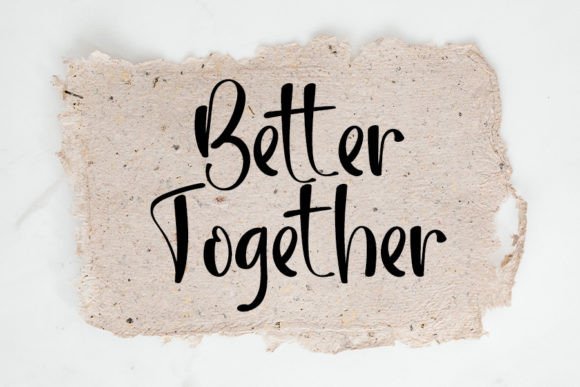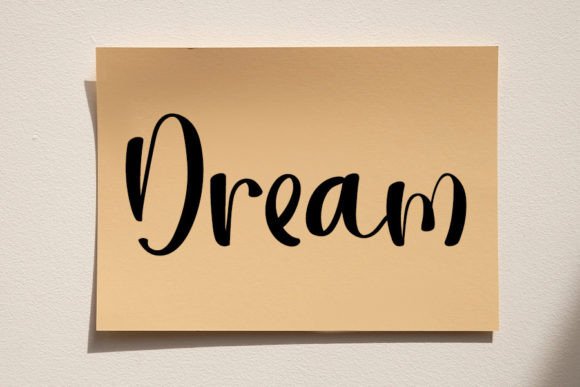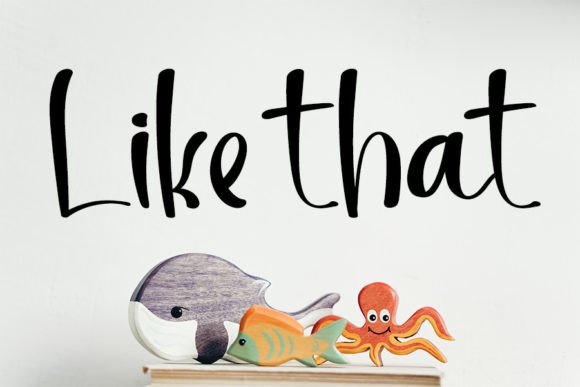
Introducing Handmade Font: Elevate Your Designs with Elegance
Are you on the lookout for a font that adds a touch of sophistication and charm to your projects? Look no further than the Handmade Font, a beautiful handwritten font that exudes elegance and refinement. With its unique and timeless style, this font is perfect for designers and crafters seeking to create stunning designs that leave a lasting impression.
The Beauty of Handmade Font
Handmade Font is a neat and beautiful handwritten font that boasts an elegant touch, making it ideal for a wide range of projects. Whether you’re working on a logo, branding materials, or marketing collateral, this font is sure to impress. Its incredibly distinct style sets it apart from other fonts, giving your designs a unique and recognizable flair.
Key Features of Handmade Font
- Elegant and Refined: Handmade Font features a sophisticated and elegant design that’s perfect for high-end projects.
- Unique and Timeless Style: This font’s distinct style ensures that your designs will stand out from the crowd and remain relevant for years to come.
- Handwritten Charm: The font’s handwritten nature adds a touch of warmth and personality to your designs, making them more relatable and engaging.
- Versatile: Handmade Font can be used for a wide range of projects, from logos and branding materials to marketing collateral and more.
Why Choose Handmade Font?
With so many fonts available, why choose Handmade Font for your projects? Here are just a few reasons why designers and crafters love this font:
- Easy to Read: Despite its elegant and refined design, Handmade Font is easy to read, making it perfect for body text and other applications where legibility is key.
- Customizable: With its versatile design, Handmade Font can be easily customized to suit your project’s specific needs.
- Unique and Memorable: This font’s distinct style ensures that your designs will be remembered long after they’ve been seen.
Using Handmade Font in Your Designs
So, how can you use Handmade Font in your designs? Here are a few ideas to get you started:
- Logos and Branding: Use Handmade Font to create a unique and memorable logo that sets your brand apart.
- Marketing Collateral: Add a touch of elegance and sophistication to your marketing materials, such as brochures, flyers, and business cards.
- Web Design: Use Handmade Font to create a beautiful and engaging website that showcases your brand’s personality.
- Crafting and DIY Projects: Add a personal touch to your crafting and DIY projects, such as handmade cards, gift tags, and more.
Tips for Getting the Most Out of Handmade Font
To get the most out of Handmade Font, here are a few tips to keep in mind:
- Experiment with Different Sizes and Colors: Don’t be afraid to experiment with different sizes and colors to find the perfect combination for your project.
- Pair with Other Fonts: Handmade Font pairs well with other fonts, so don’t be afraid to get creative and try out different combinations.
- Use it Sparingly: While Handmade Font is beautiful, it can be overwhelming if used too much. Use it sparingly to create a lasting impression.
In conclusion, Handmade Font is a beautiful and elegant handwritten font that’s perfect for designers and crafters seeking to add a touch of sophistication and charm to their projects. With its unique and timeless style, this font is sure to impress and leave a lasting impression. So why wait? Fall in love with Handmade Font and use it to create spectacular designs that showcase your brand’s personality and style.